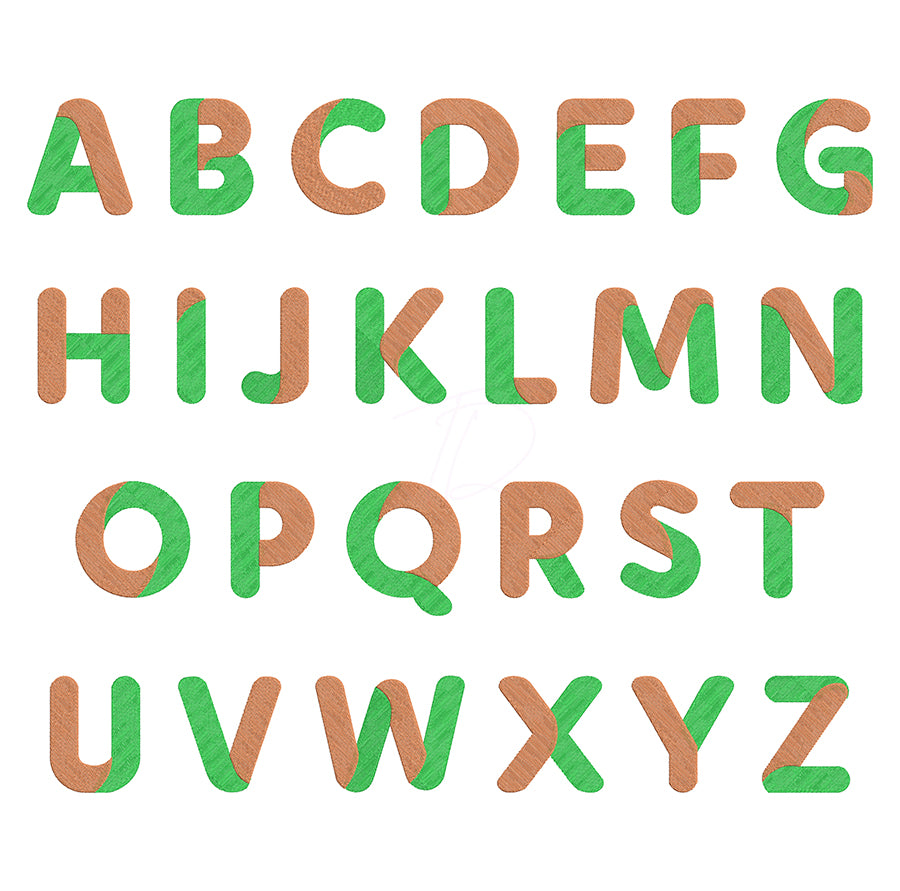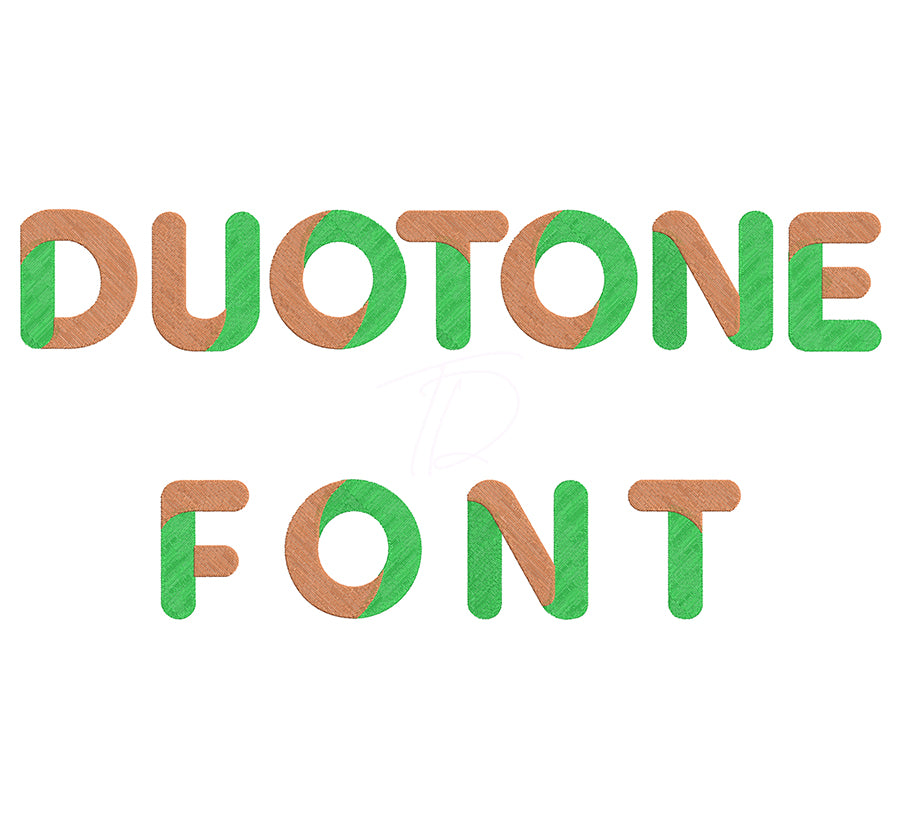
Duotone Embroidery Font
Make every letter a two-toned masterpiece with the Duotone Embroidery Font — a sleek, modern machine embroidery font engineered to showcase stunning two-color contrast in every stitch. 🎨✨🧵
The duotone design splits each letterform into two distinct color zones, creating a bold, graphic look that stands out on hats, apparel, bags, and accessories. Perfect for team gear, branded merchandise, streetwear, and anyone who wants their embroidery to turn heads.
- Two-color split design — stitch each color section separately for crisp, clean results
- Bold stitching optimized for medium and large sizes for maximum impact